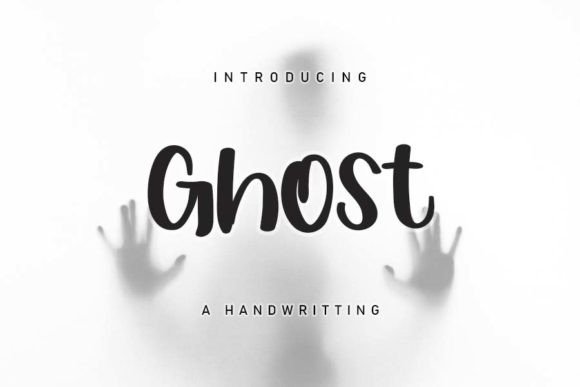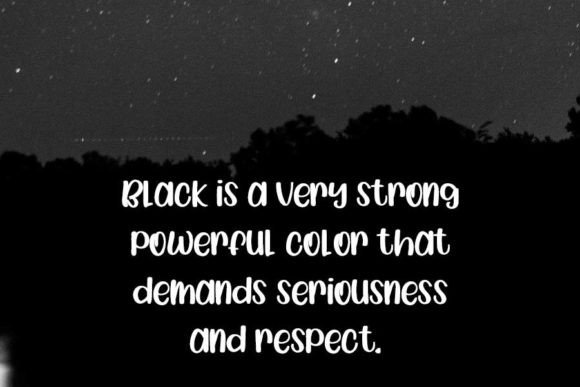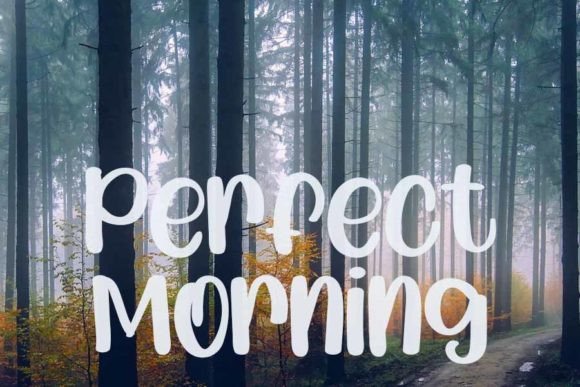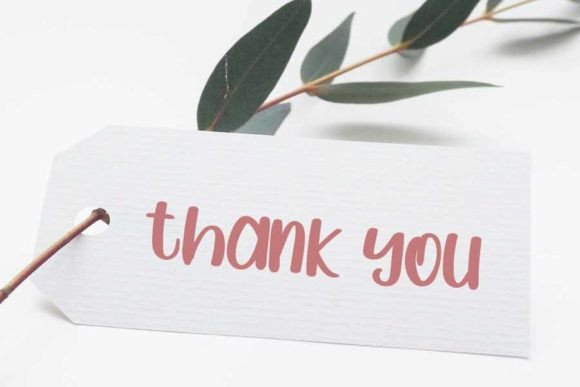
Ghost Font
Ghost Handwritten Font – Beautiful and Magical Script
The Ghost Handwritten Font is a charming and stylish typeface created to bring elegance and balance to your projects. With strokes that are not too thin and not too thick, this font is carefully designed to add variety and beauty to both digital and print creations. Whether you’re crafting invitations, logos, or posters, this font provides a magical touch.
A Script with Magical Elegance
The Ghost Handwritten Font combines balanced handwritten strokes with a smooth and magical appeal. Its clean proportions and natural flow make it versatile, while its graceful details ensure your designs always look polished. Because of this, it adapts easily to professional and creative contexts alike.
One of the most popular uses of the Ghost Handwritten Font is in invitations and greeting cards. Wedding stationery, birthday cards, and thank-you notes become more elegant and expressive when designed with this script. At the same time, it works beautifully for posters, logos, and branding, where a handwritten font can enhance identity and originality.
The Ghost Handwritten Font adapts to many design applications. From product packaging and decorative quotes to social media graphics and branding, it delivers a handwritten charm that feels modern yet timeless. Its versatility ensures it becomes a valuable tool in your design library.
Why Designers Love Ghost Font
Designers love the Ghost Handwritten Font because it balances magical style with usability. Its elegant handwritten strokes make projects stand out, while its clarity ensures professional results. This combination of creativity and readability makes it a must-have for different design styles.
In summary, the Ghost HandwrittenFont is a beautiful, magical, and versatile script typeface. With its balanced handwritten strokes, quick installation, and broad usability, it is perfect for invitations, posters, crafts, and branding. Don’t miss the chance to download Ghost HandwrittenFont and bring a touch of handwritten magic to your next creative project.